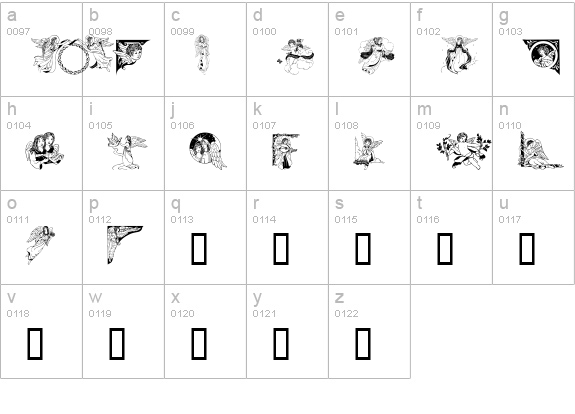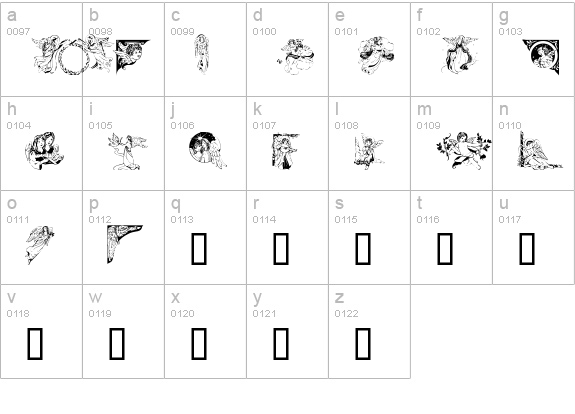
GE Angels III Font Details
GE Angels III font is a stunning display typeface that exudes elegance and sophistication. With its intricate details and graceful curves, this font is perfect for adding a touch of luxury to your designs. The ornate swashes and flourishes give GE Angels III font a distinctively ethereal quality, making it ideal for projects that require a touch of whimsy and magic. What sets GE Angels III font apart is not just its beauty, but also its versatility. Whether you're designing invitations, branding materials, or packaging, this font will elevate your work to new heights. Its timeless appeal makes it suitable for a wide range of projects, from wedding stationery to high-end fashion campaigns. The best part? GE Angels III font is completely free to download at FontsMarket.com. So go ahead and add a touch of elegance to your designs with this exquisite font.